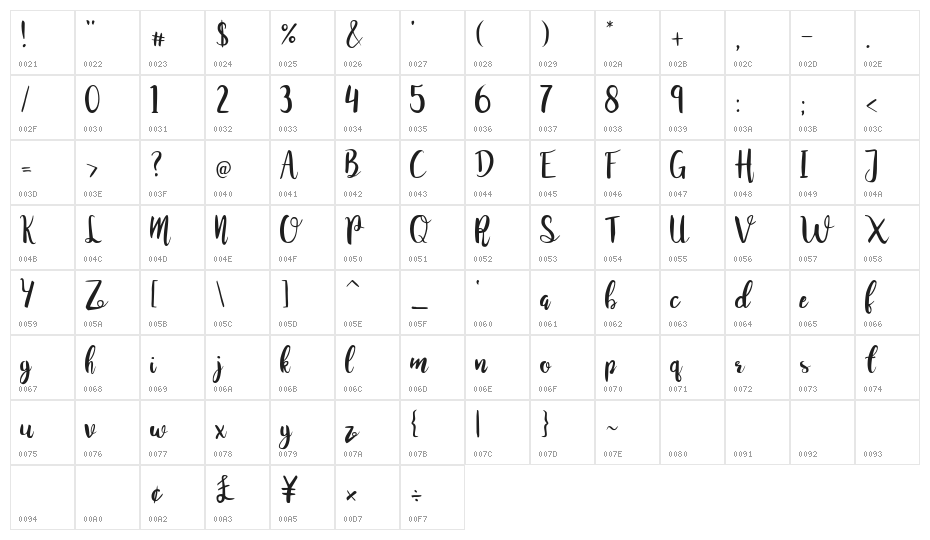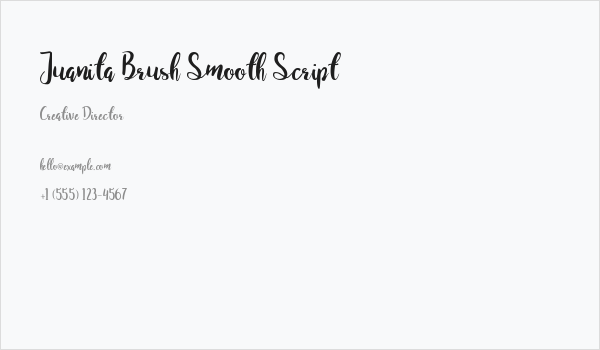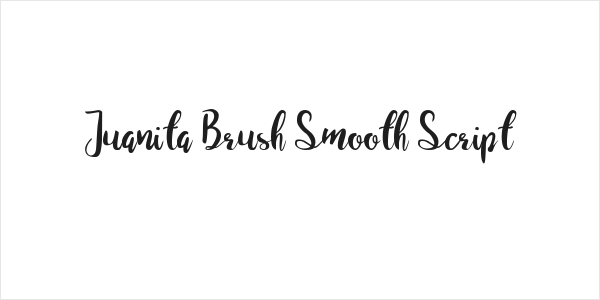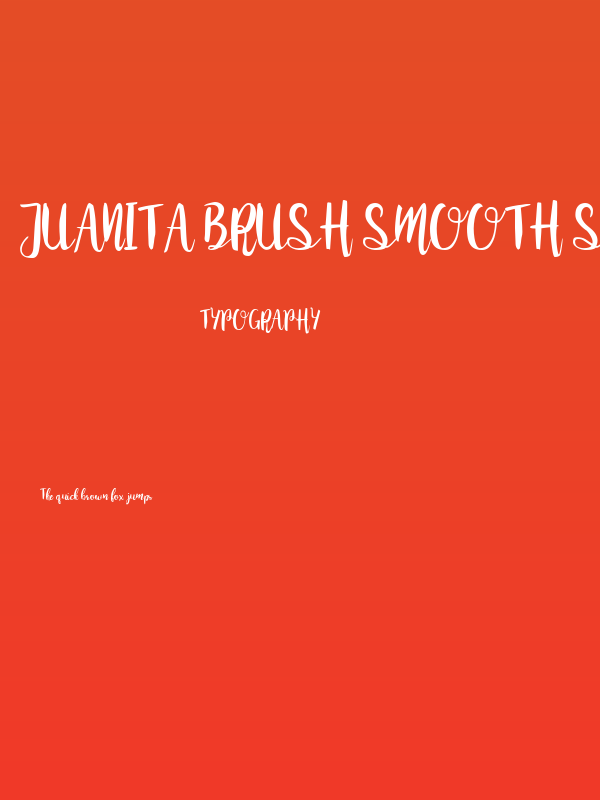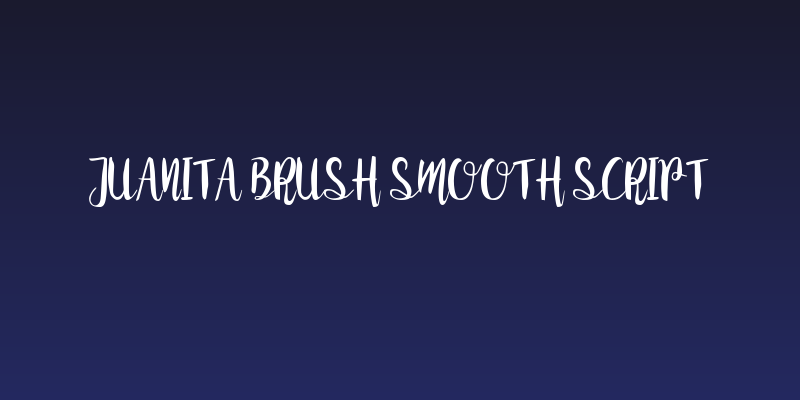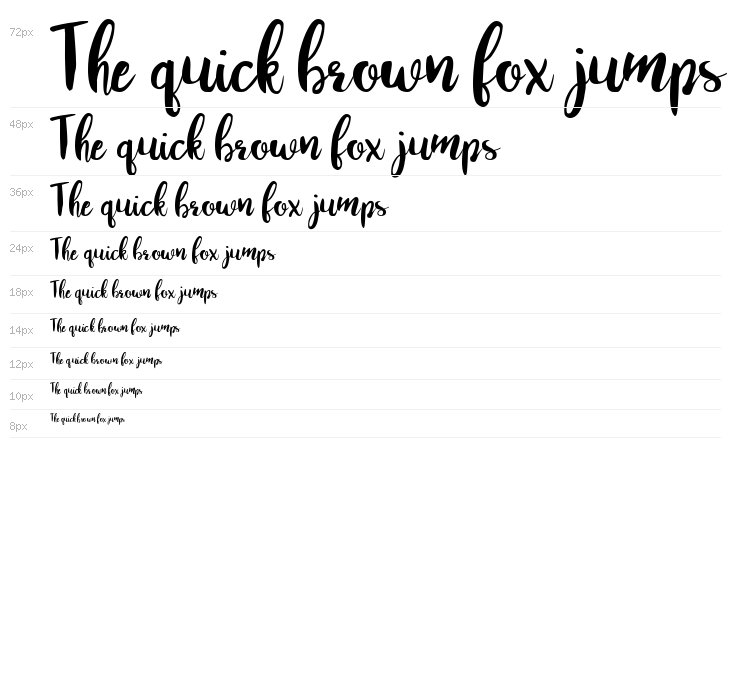
Juanita Brush Smooth Script Font
Juanita Brush Smooth Script Description
This font features a smooth, flowing script style that mimics the fluidity of brush strokes. The uppercase letters are bold and expressive, with a slight slant that adds a dynamic feel. The lowercase letters maintain a consistent flow, enhancing readability while retaining an artistic flair. Numbers and special characters are crafted with the same attention to detail, ensuring a cohesive look across all elements. The overall appearance is elegant and sophisticated, making it suitable for a variety of creative projects.
| Proposed Projects | Ideal for wedding invitations, branding, logo design, and artistic projects requiring a personal touch. |